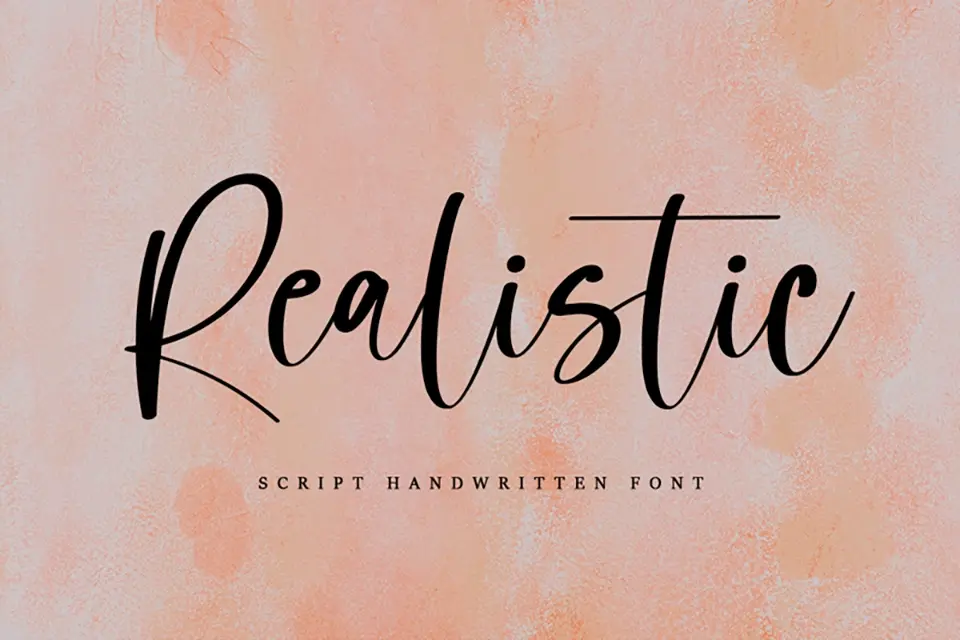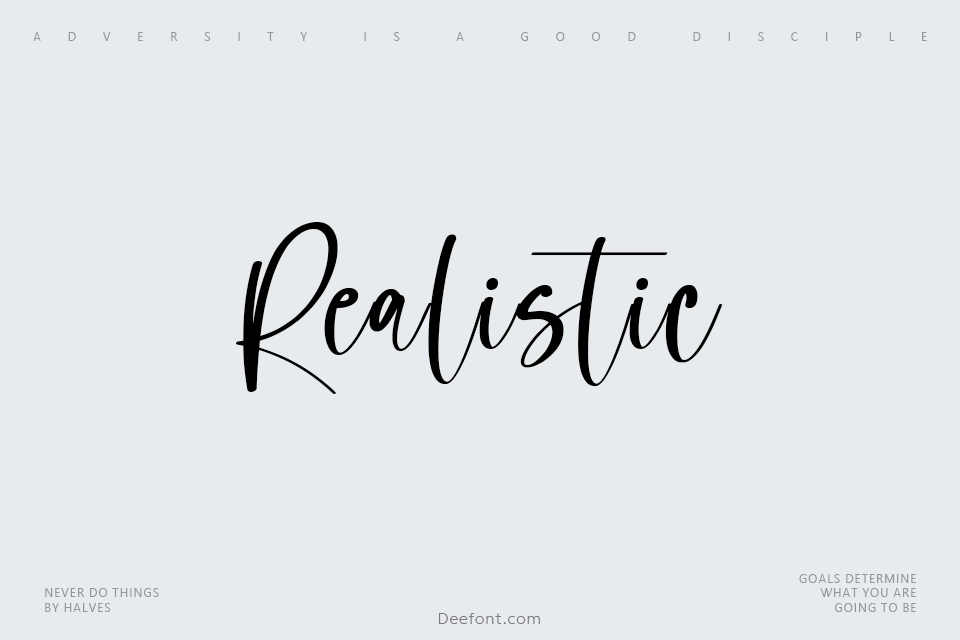
Realistic Font
Realistic is a bright and elegant handwritten script font designed for personal creative projects. This charming typeface features natural stroke variations that bring warmth and authenticity to your designs. With its fluid letterforms and careful attention to detail, Realistic adds a personal touch to branding, invitations, and decorative typography. The font includes 239 glyphs and is PUA encoded for easy glyph access.
Designed by:Dimas Aji Virgiawan (Dav Studio)